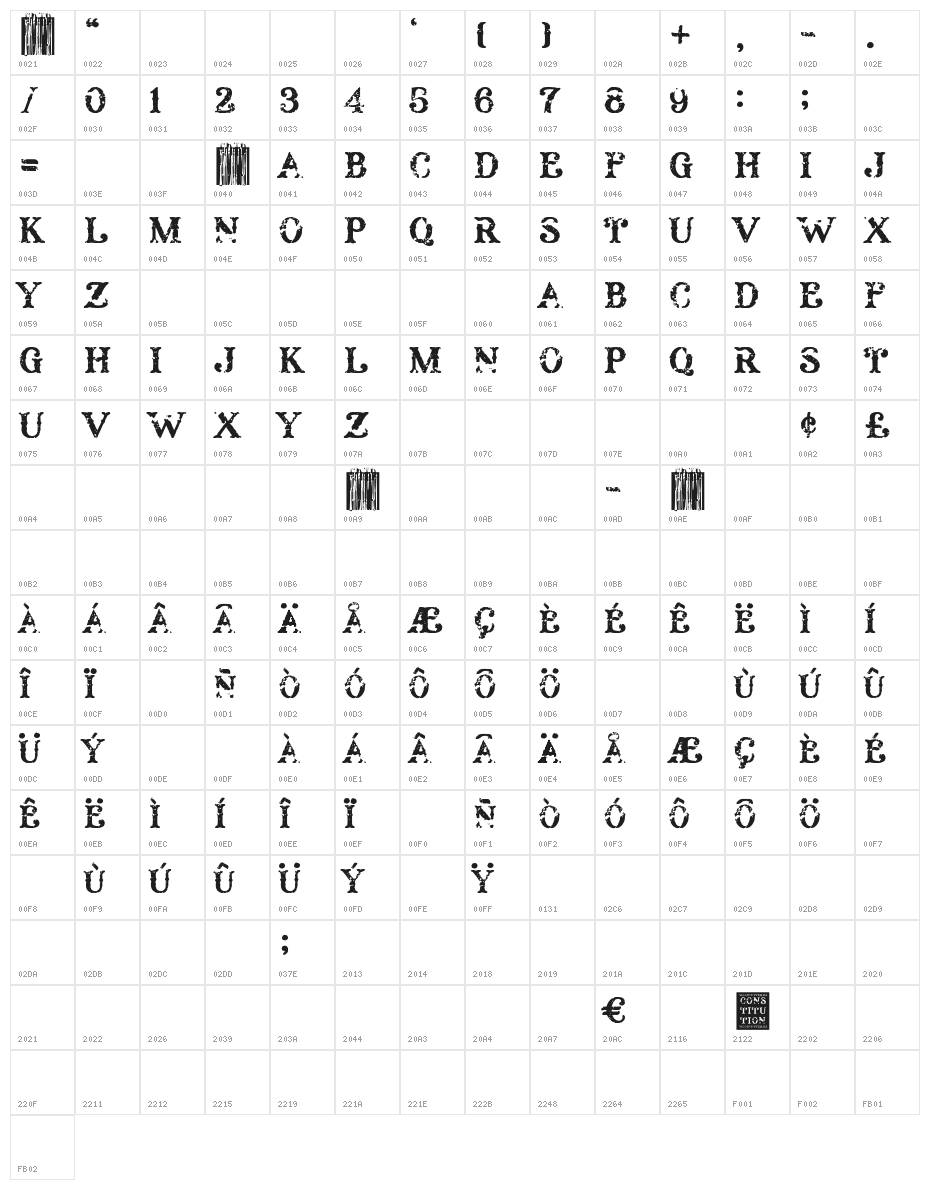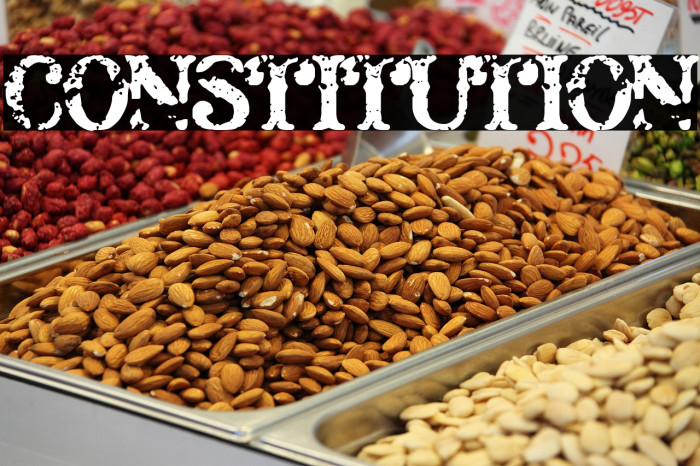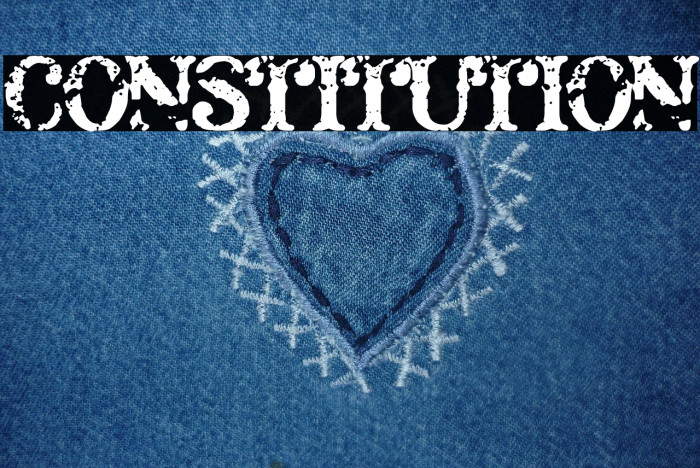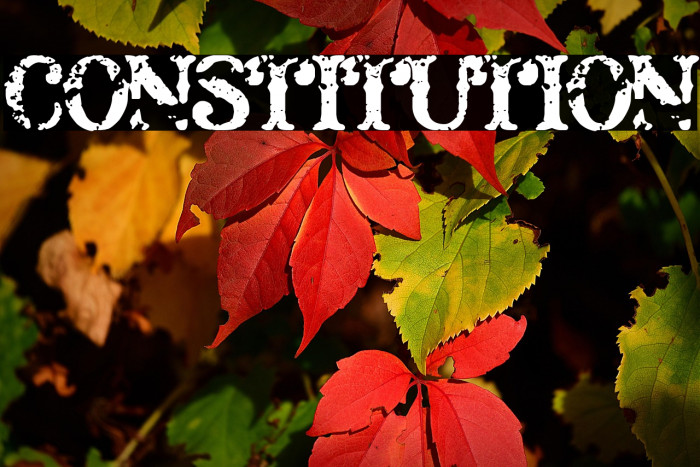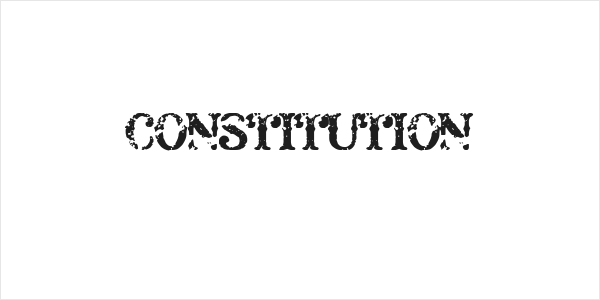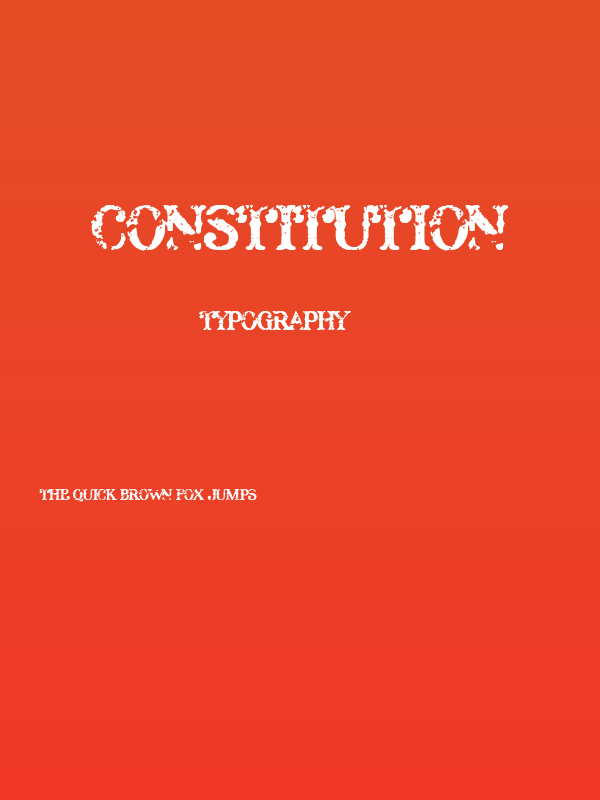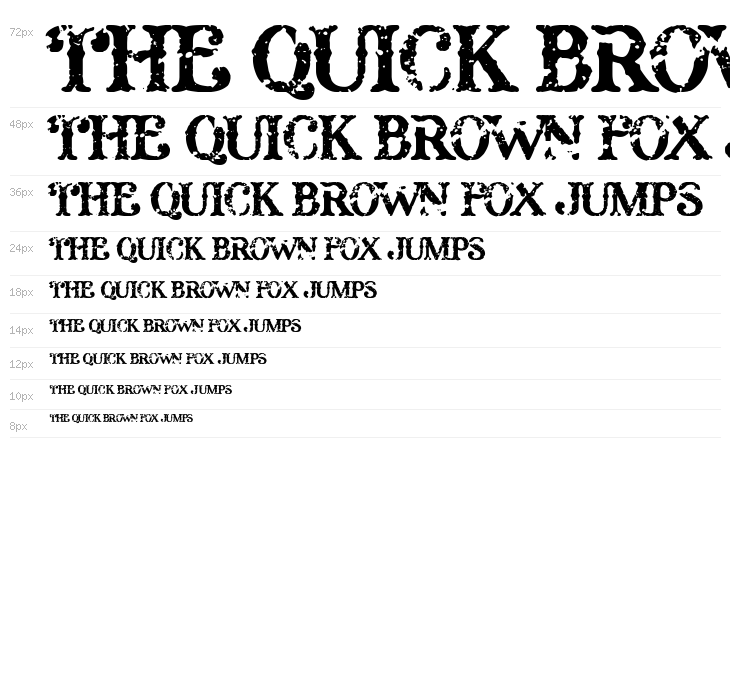
Constitution Font
Constitution Description
This font features a distressed and weathered appearance, giving it a vintage and rugged feel. The characters are bold and have a serif style, with rough edges and a textured look that suggests age and wear. This design choice adds a sense of history and character, making it ideal for projects that require a touch of nostalgia or a rustic aesthetic. The uppercase and lowercase letters maintain a consistent style, while the numerals and special characters follow the same distressed theme, ensuring uniformity across all text elements.
| Overall Style | Vintage |
| Proposed Projects | Ideal for vintage-themed posters, historical documents, rustic branding, and any design needing a weathered look. |